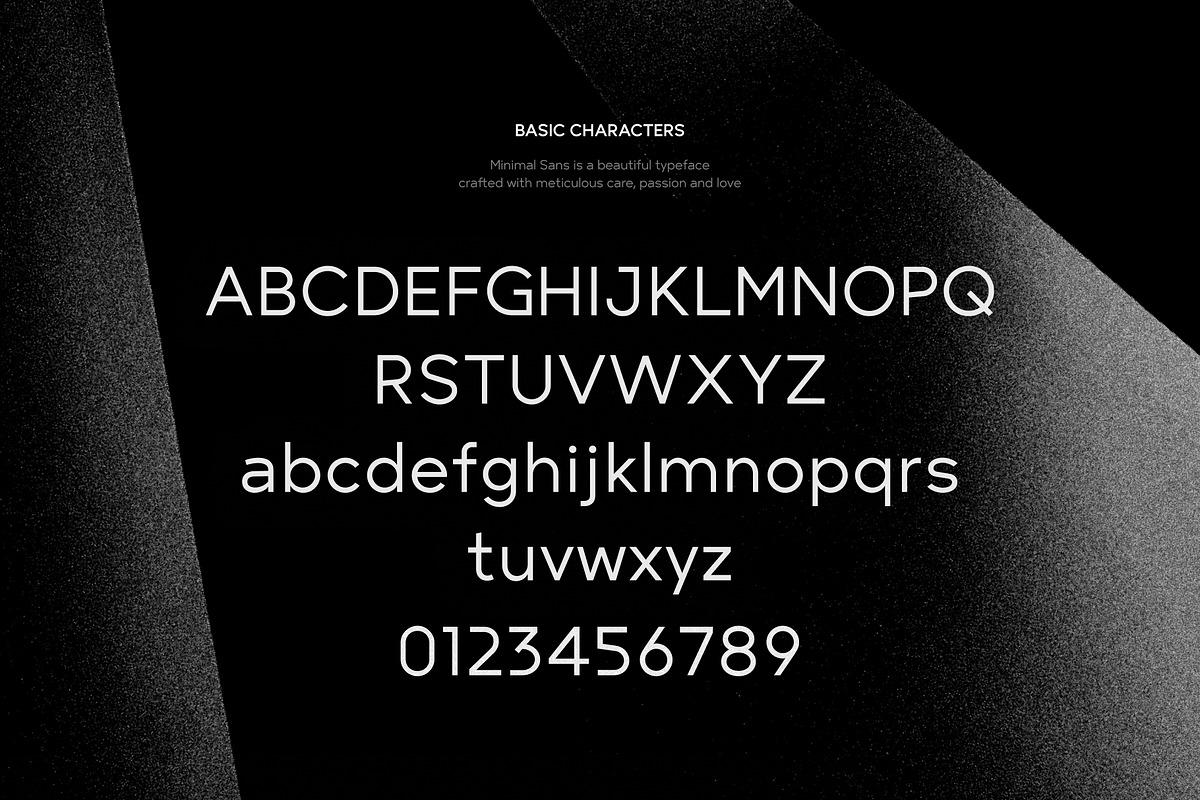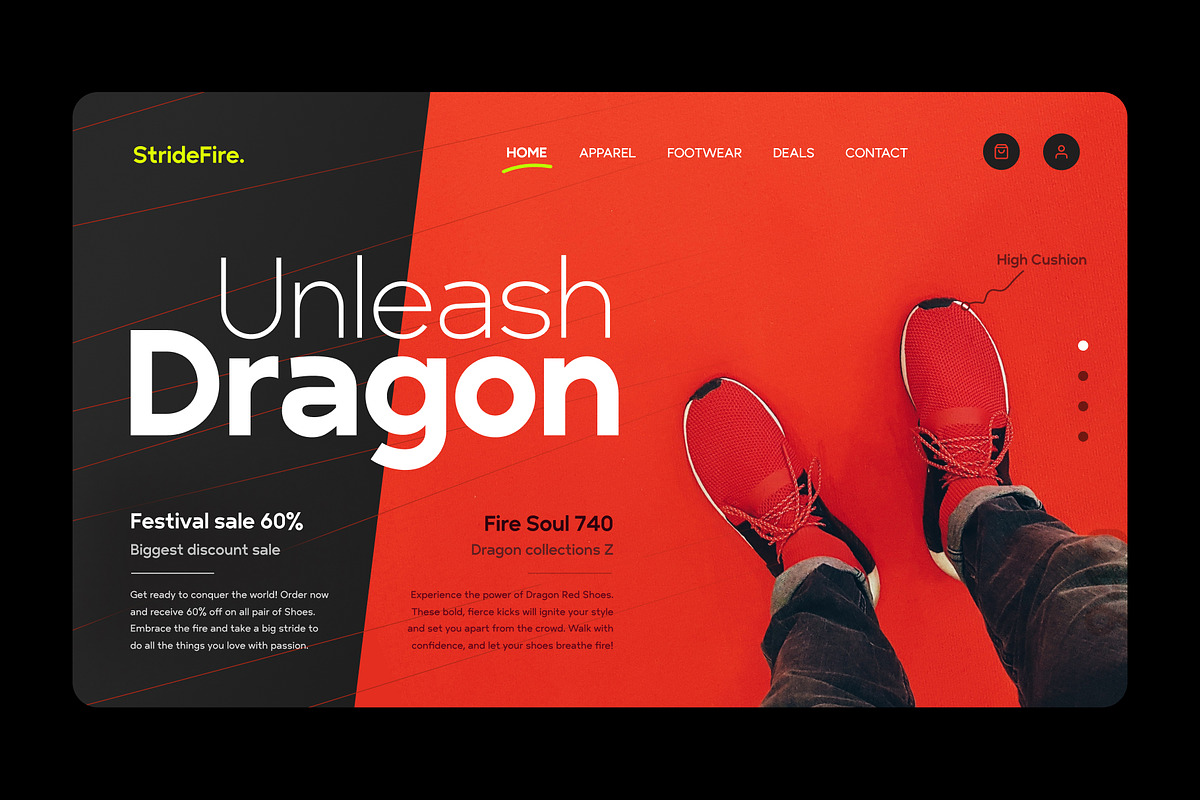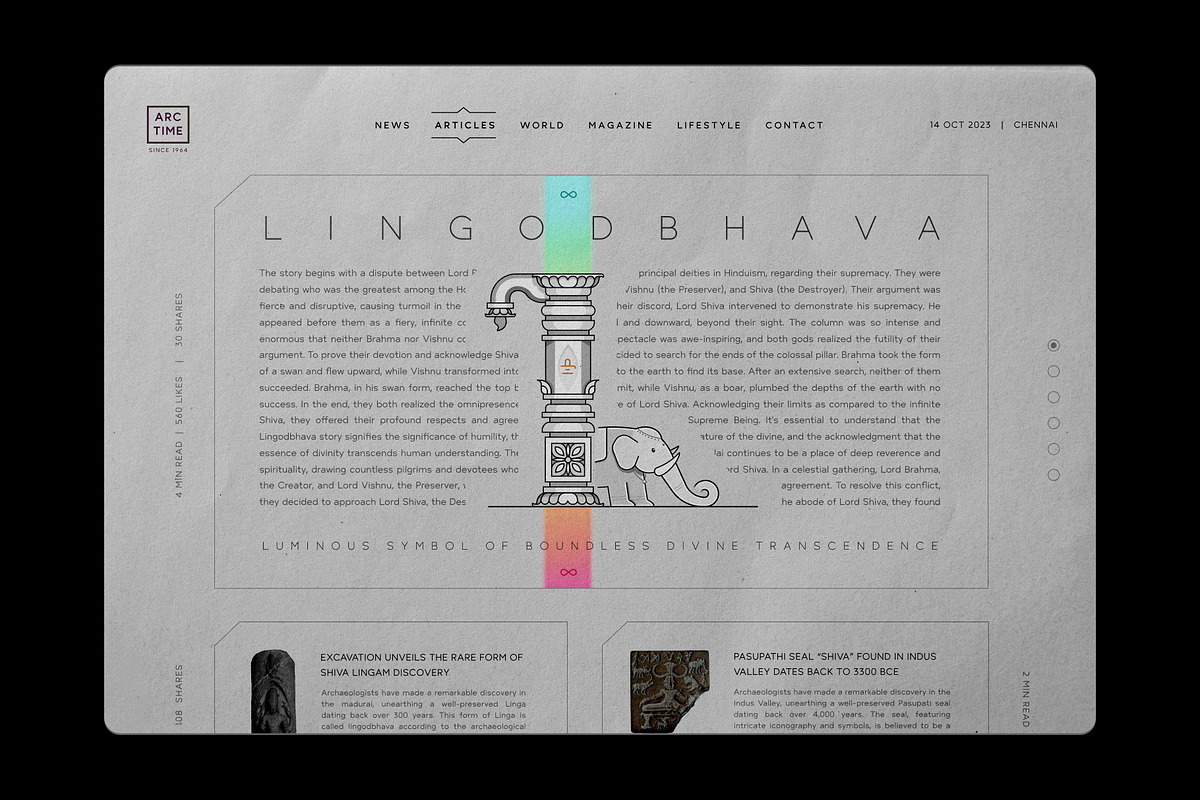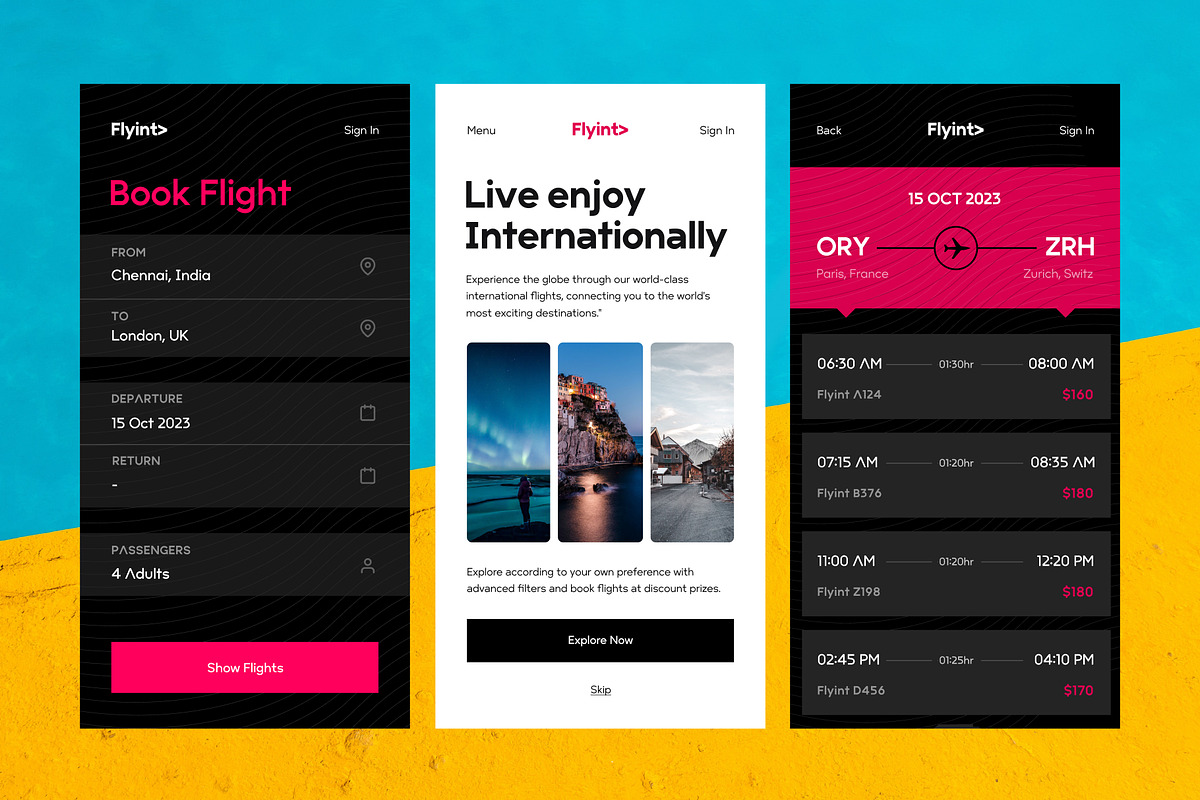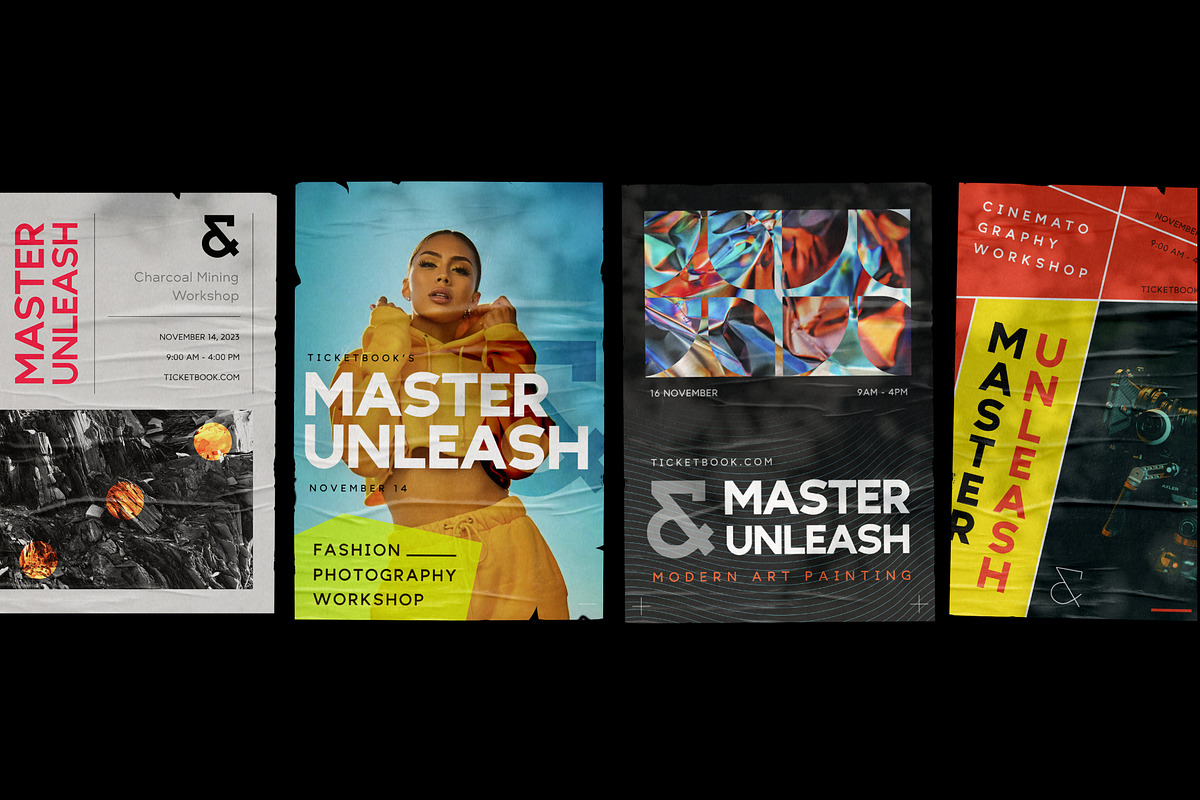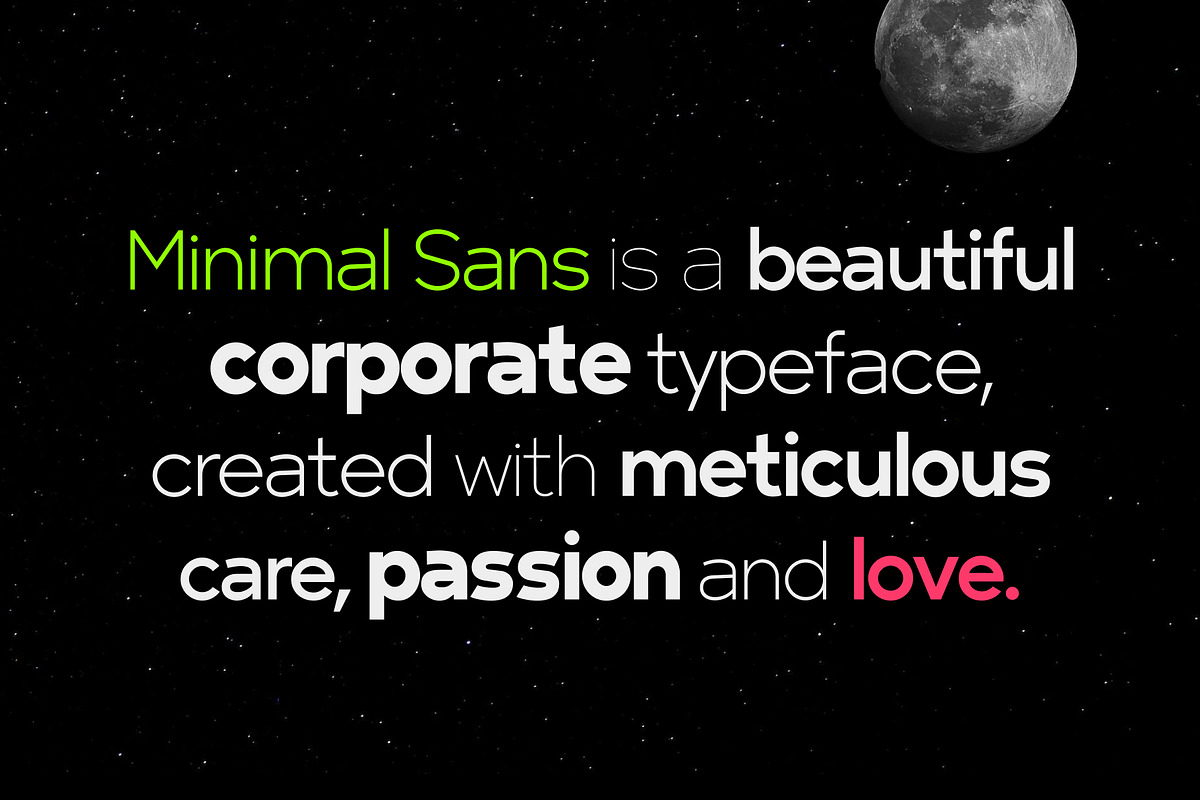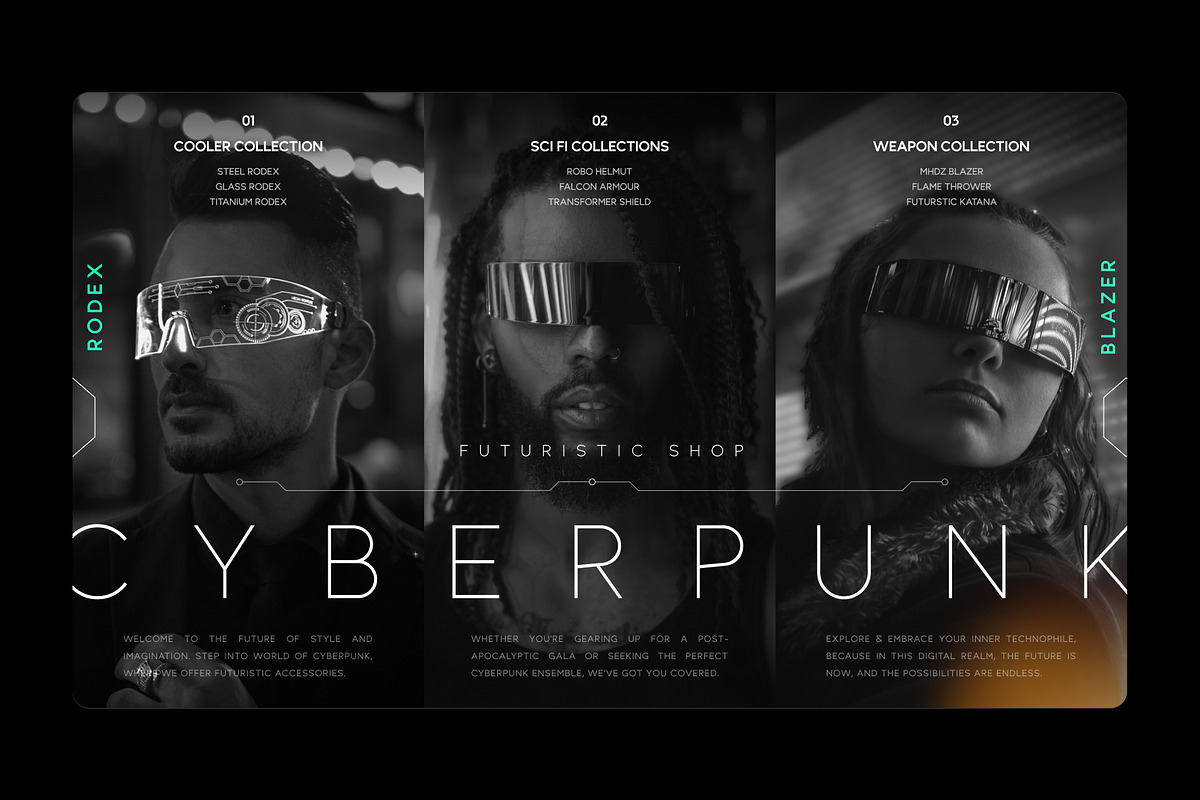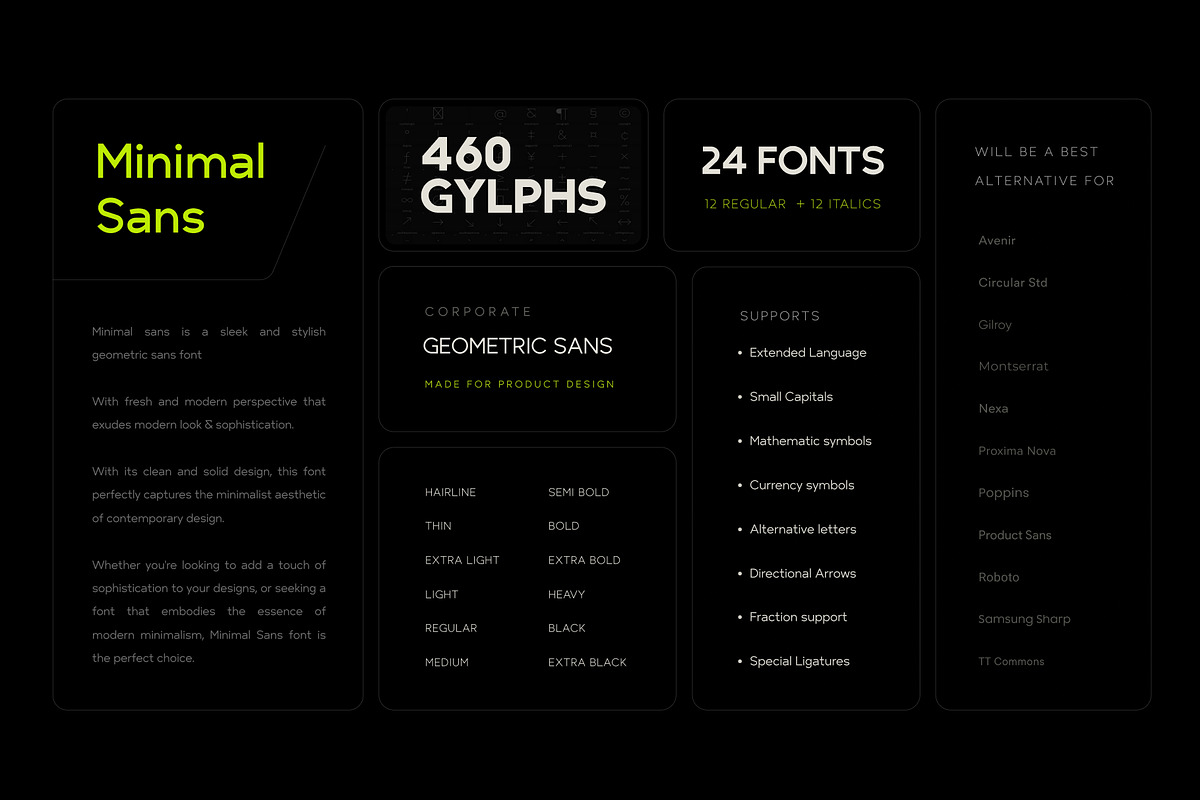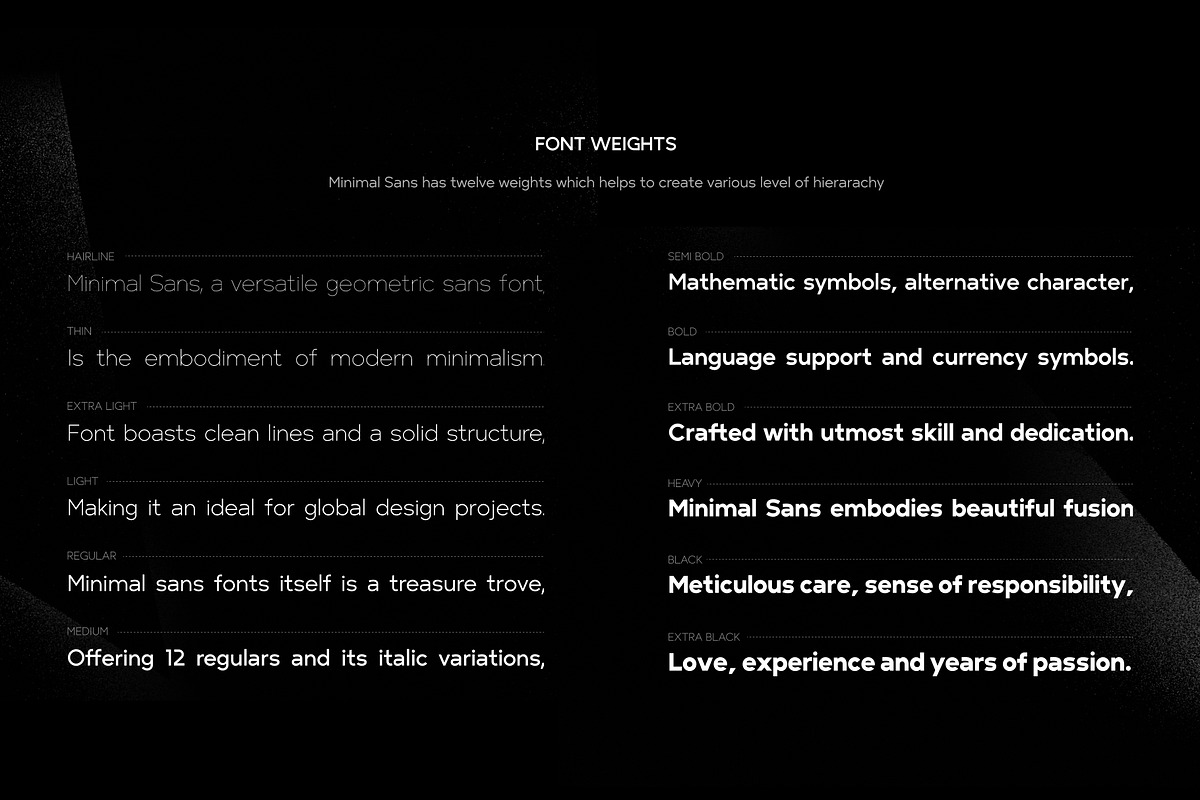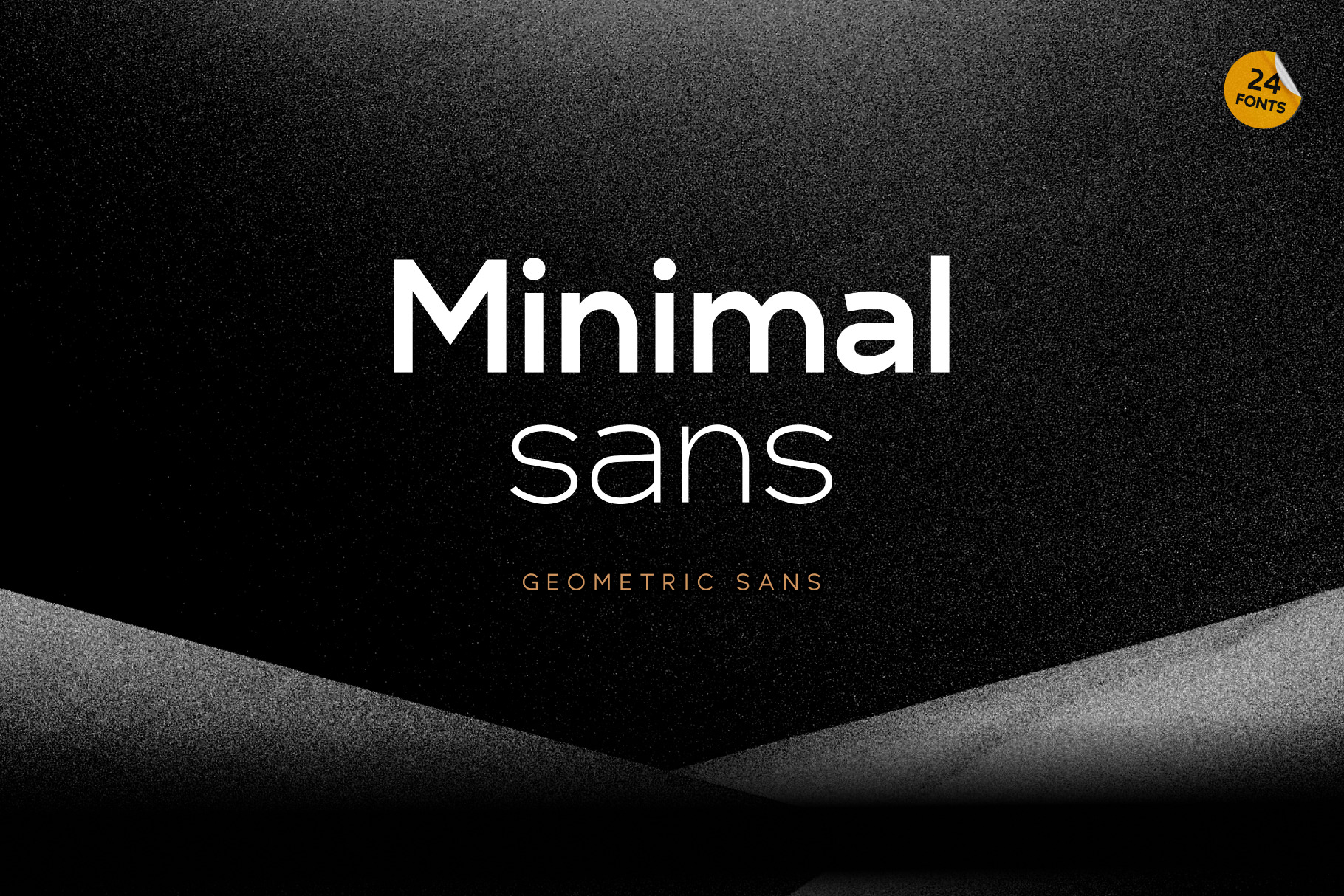
Minimal Sans - Geometric - 24 fonts
Minimal Sans is a versatile geometric sans font that offers a modern and minimalist aesthetic look. With its clean lines and solid structure, this font is perfect for a range of design projects. Whether you're looking for a font for branding, web design, or print materials, Minimal Sans is the perfect choice.
24 fonts = 12 Regular slope + 12 Italics slope
460 glyphs.
Extended Language
Small Capitals
Mathematic symbols
Currency symbols
Alternative letters
Directional Arrows
Fraction support
Special Ligatures